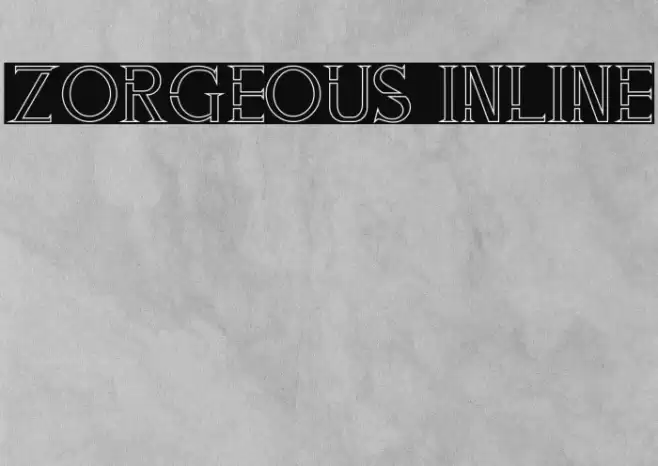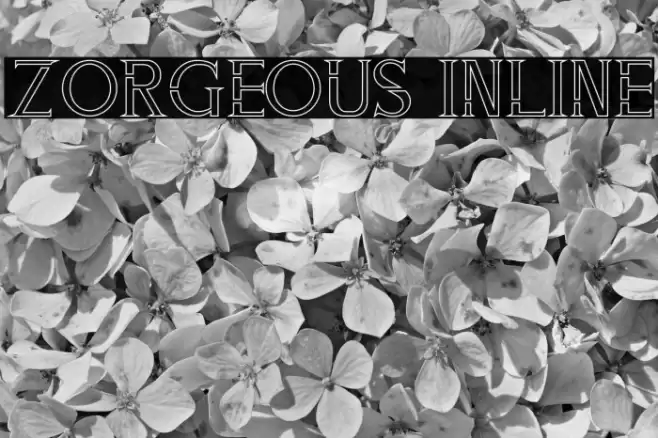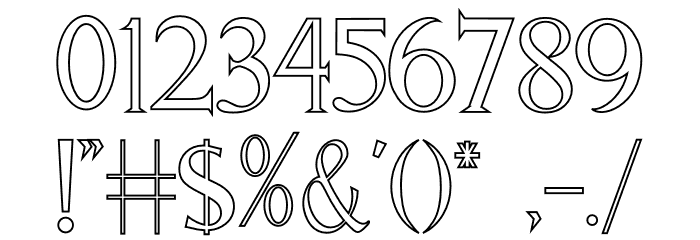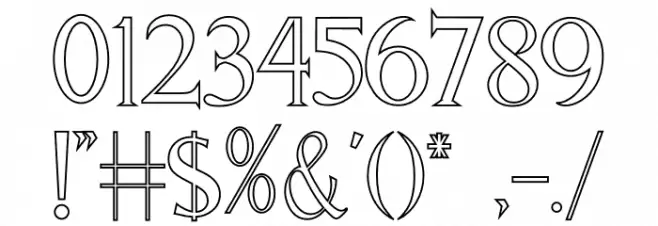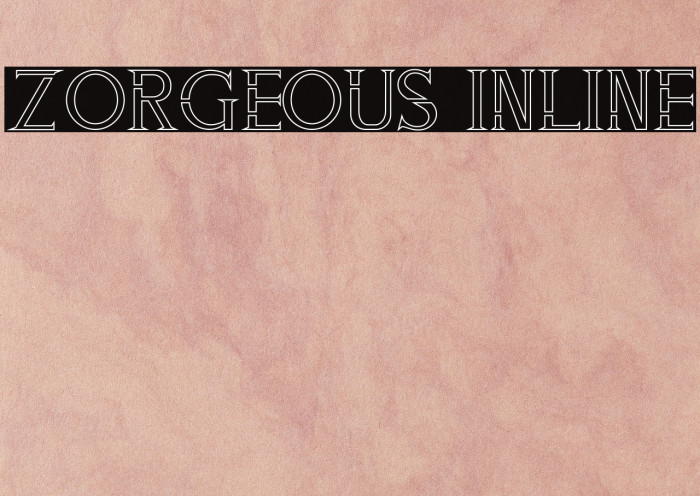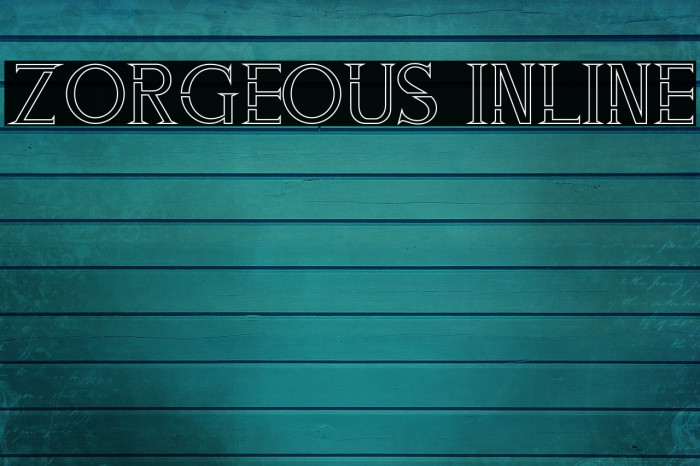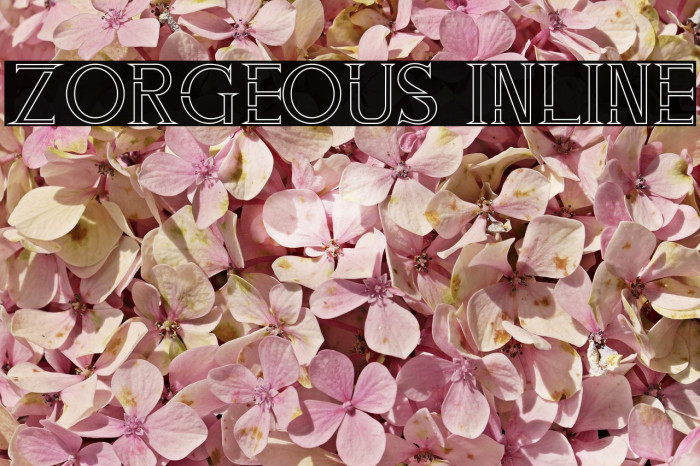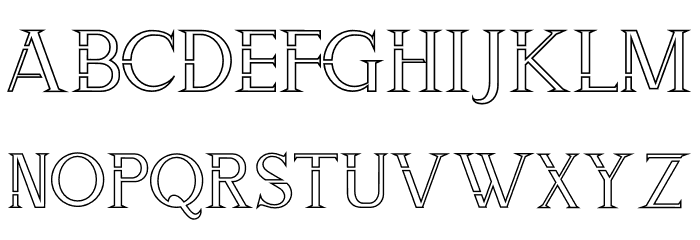
ZORGEOUS INLINE Font
ZORGEOUS INLINE Description
This font features a distinctive inline style that combines elegance with a modern flair. The uppercase letters are bold and structured, with clean lines and a geometric influence that gives them a contemporary look. The inline design adds a unique touch, creating a sense of depth and sophistication. The numerals are equally striking, maintaining the same inline aesthetic, which ensures consistency across all characters. Special characters are thoughtfully designed to match the overall style, making this font versatile for various applications. Its balance of boldness and intricacy makes it suitable for projects that require a strong visual impact.
A modern inline font with geometric elegance and bold structure from Uncategorized fonts.
- Proposed Projects: Ideal for branding, headlines, posters, and any design requiring a modern and sophisticated touch.